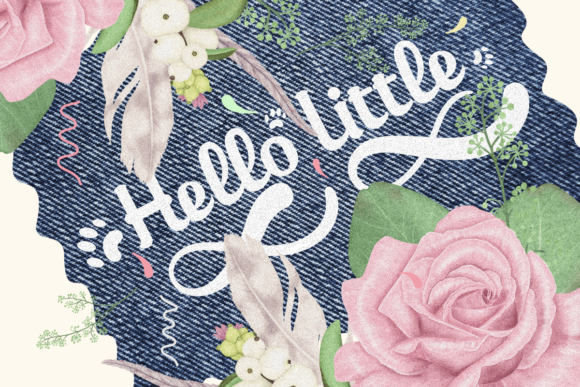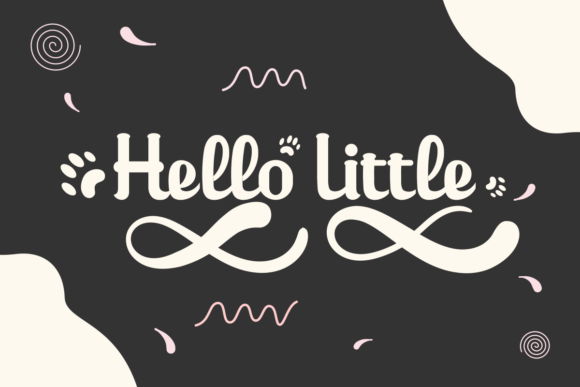
Hello Little Tiger Font
db-ku.com - Script & Handwritten -- Hello Little Tiger is an incredibly distinct and timeless handwritten font. It looks stunning on wedding invitations, thank you cards, quotes, greeting cards, logos, business cards and every other design which needs a handwritten touch.